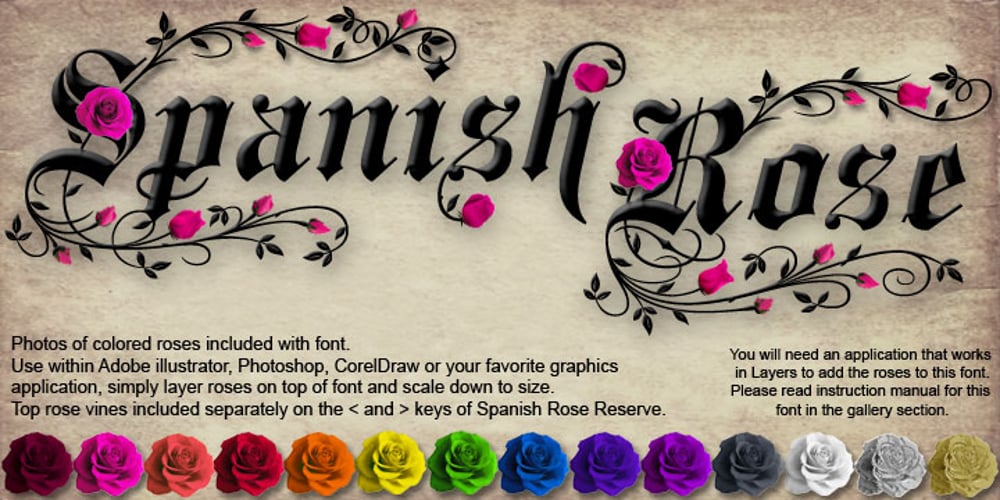
Spanish Rose
Spanish Rose font
Spanish Rose Font Family was designed by Michael Hagemann and published by FontMesa. Spanish Rose contains 6 styles and family package options. Spanish Rose is a combination of photographic images and fonts layered together to create a final image that’s sure to get the individual viewer’s attention. The vivid color roses, included with the font, adds more beauty, depth and impact to what ever project you decide to use it on. Spanish Rose may be used with or with out the rose photos, the basic font comes with an illustrated rose incorporated into the letters. To add the rose photos to the letters you will need an application that works in layers such as Adobe Illustrator, Photoshop or CorelDraw. Word processor‚s do not work in layers, however you may create and save an image of rose letters in Photoshop then place the image file into your Word document. The rose photos are supplied as PNG files with the background set as transparent, the photos are large in size and set to 300dpi. You will need to scale down the roses to fit the size of your project, rotating some of the roses will also be necessary for alignment on the rose vines. A set of alternate lowercase letters, additional parts and a rose border are in the Spanish Rose Alternates font, please refer to the instruction manual showing you which keys the alternate characters are on. Combining photos and fonts isn’t a new idea, adding the roses to the letters and placing them into a Photofont plug-in was a possibility, however keeping the roses and font separate allows you to apply many different textures, colors or special effects to the letters while the roses remain unchanged. Spanish Rose was built upon the FontMesa Spanish Main font where under the name Spanish Main you will find the plain version of this font. Bella Rose was the first font I designed with roses, after completing the Bella Rose font family I was so pleased with the finished product that I decided to create Spanish Rose using the same rose design and images.